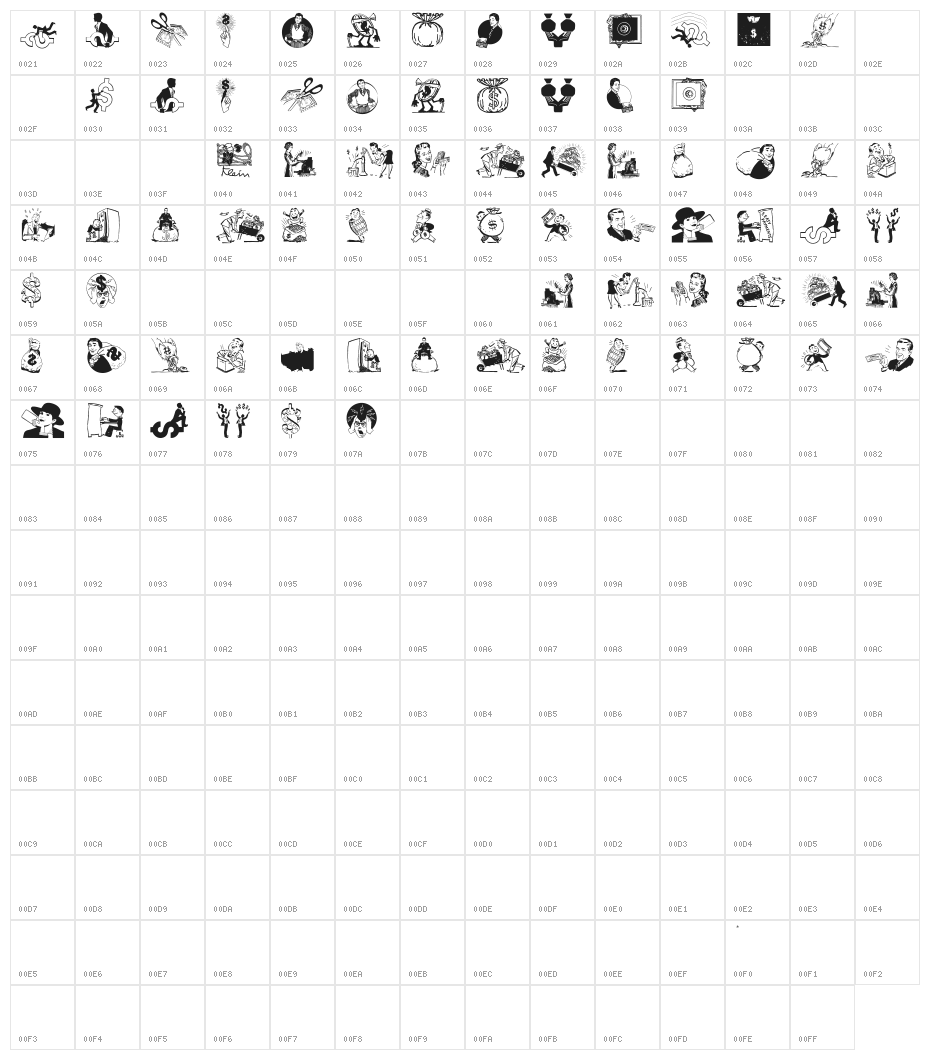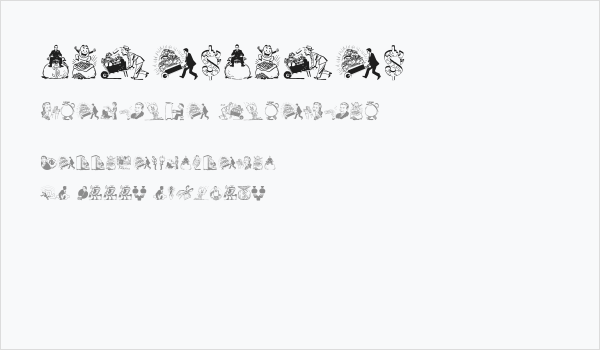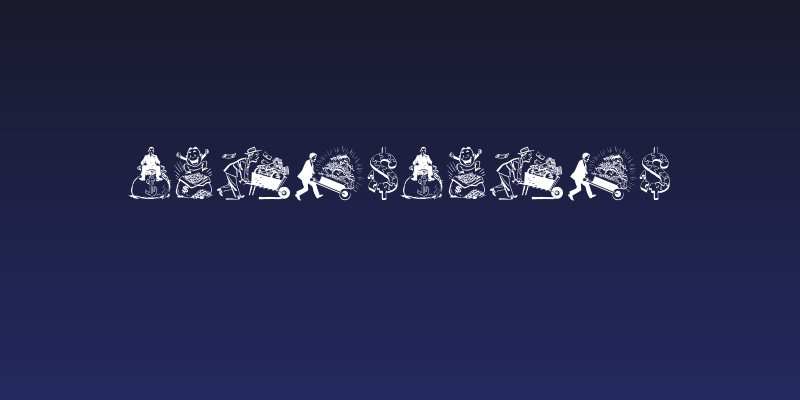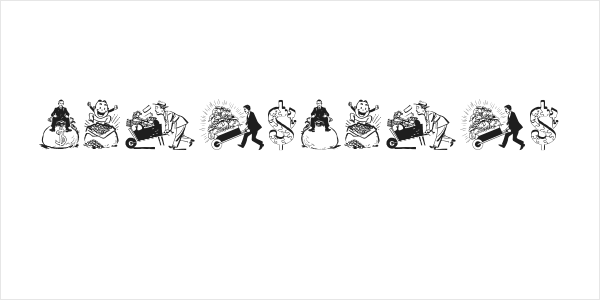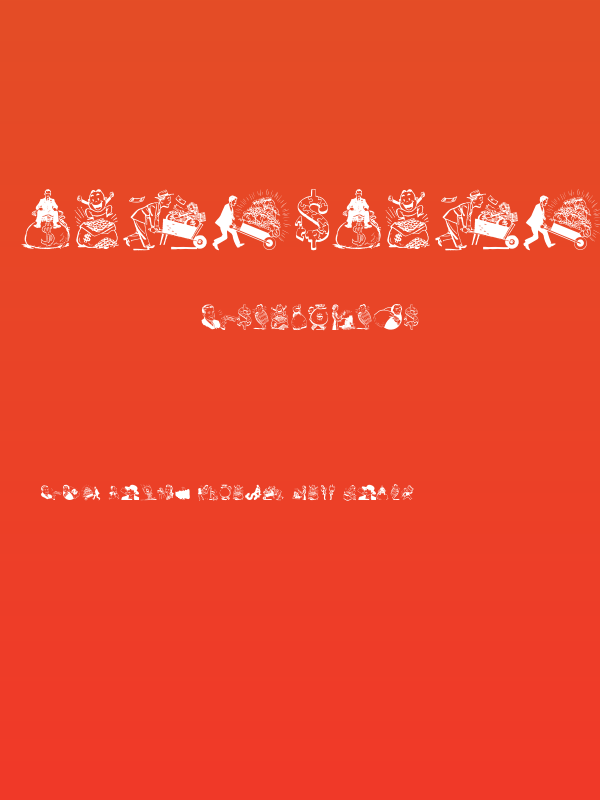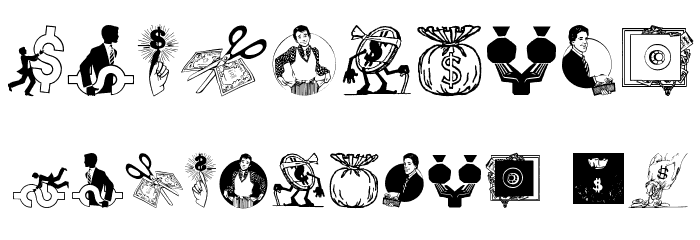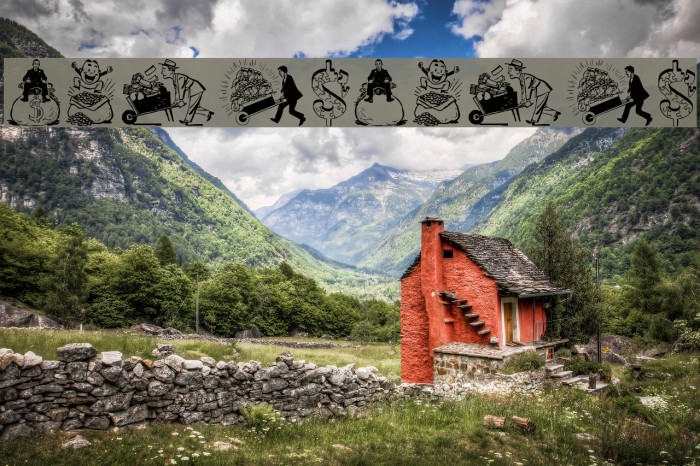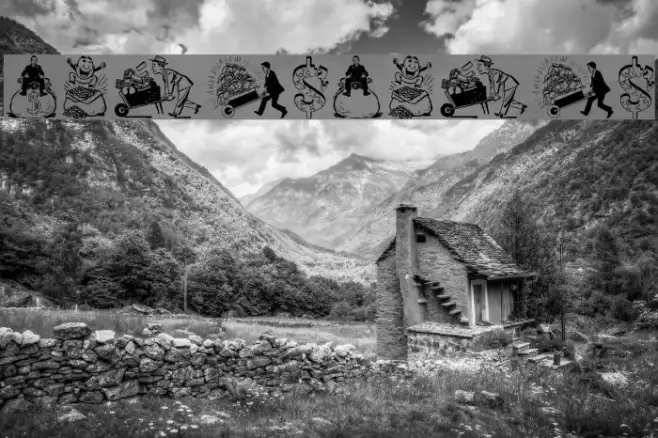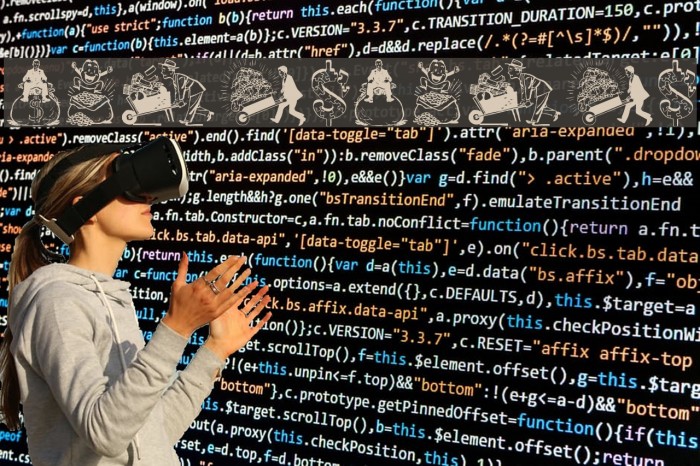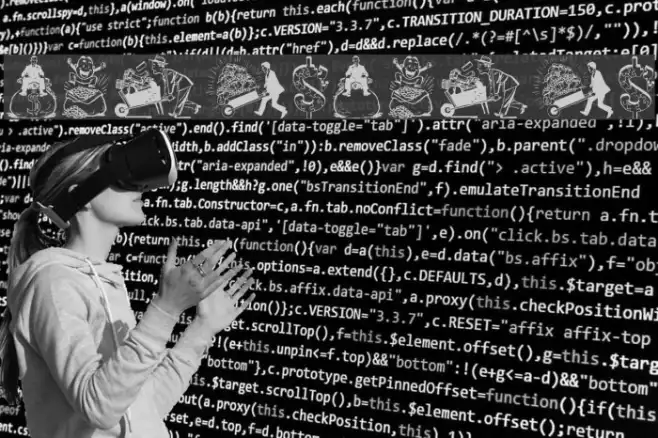
Moneymoney Font
Moneymoney Description
A playful, decorative font composed of detailed cartoon illustrations themed around money, finance, and business, with each character represented by a unique drawing. The style is bold and highly illustrative, featuring retro-inspired line art and dynamic scenes involving people, cash, and financial symbols.
| Overall Style | Decorative, Playful, Retro |
| Use Case | Logos, Headlines, Posters, Themed Graphics |
| Proposed Projects | Children’s books, financial infographics, playful posters, themed event invitations, educational materials, novelty branding. |